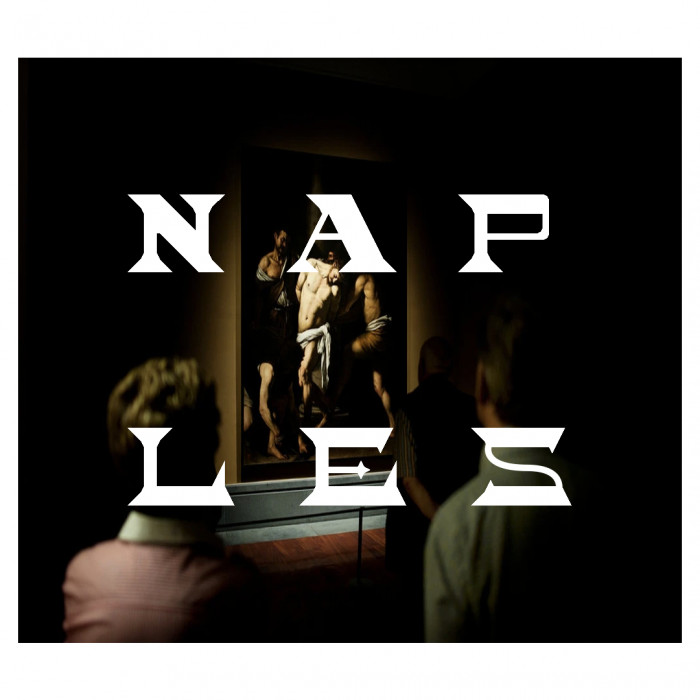
• Naples WIP
UPPER CASE ONLY
My typeface has been created in line with the theme ‘dangerous’. From my chosen theme I explored the idea of sharp edges (blades/swords/razor) and decided to create a serifed typeface in which the serifs are extended or curved into a point to mimic the shape of a blade/sword/knife.  I chose ‘Naples’ (“Italy’s capital of crime”) as the name due to its historical reputation as a dangerous city and it's links to the Camorra.